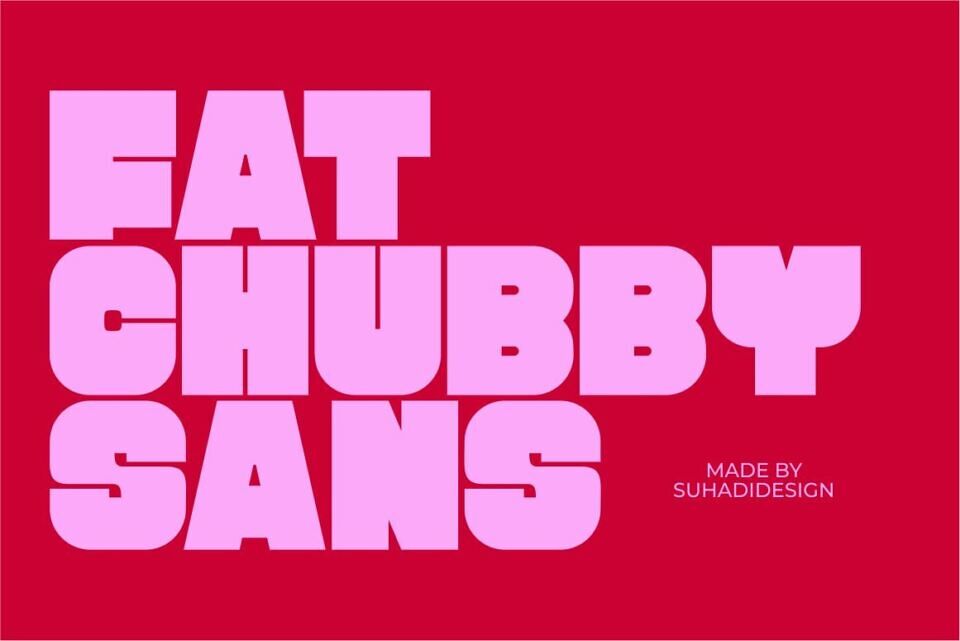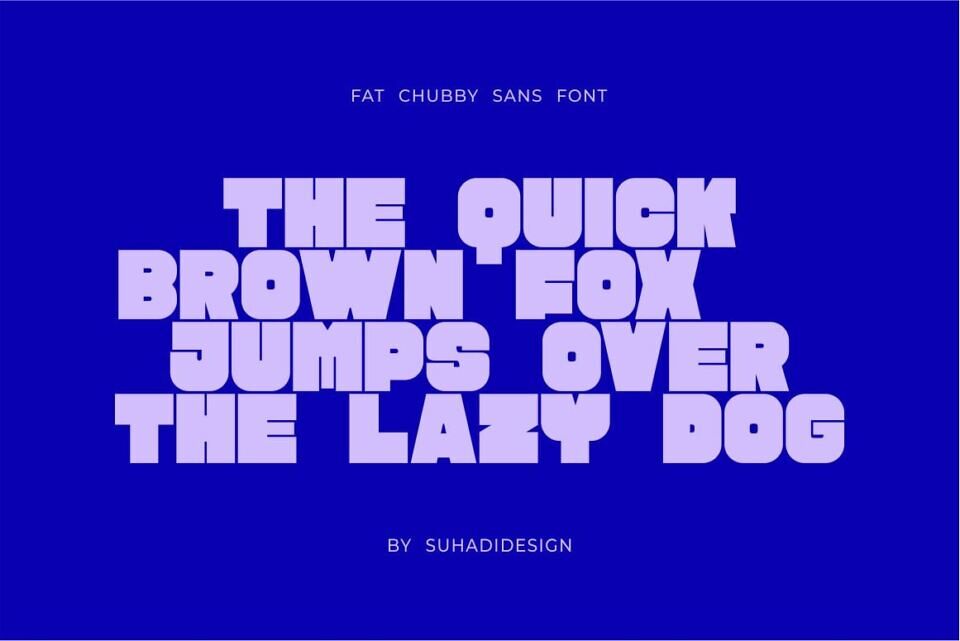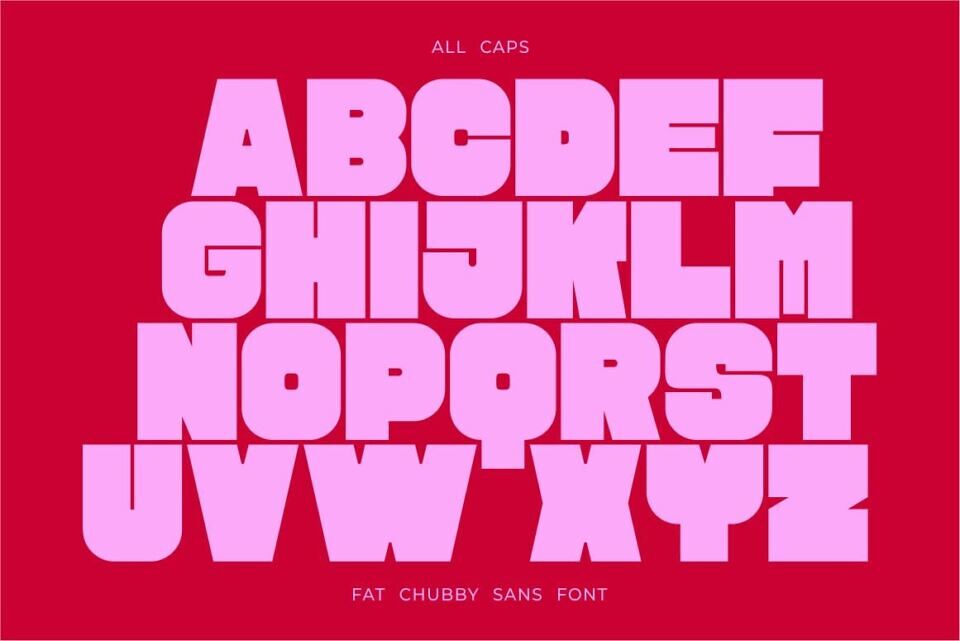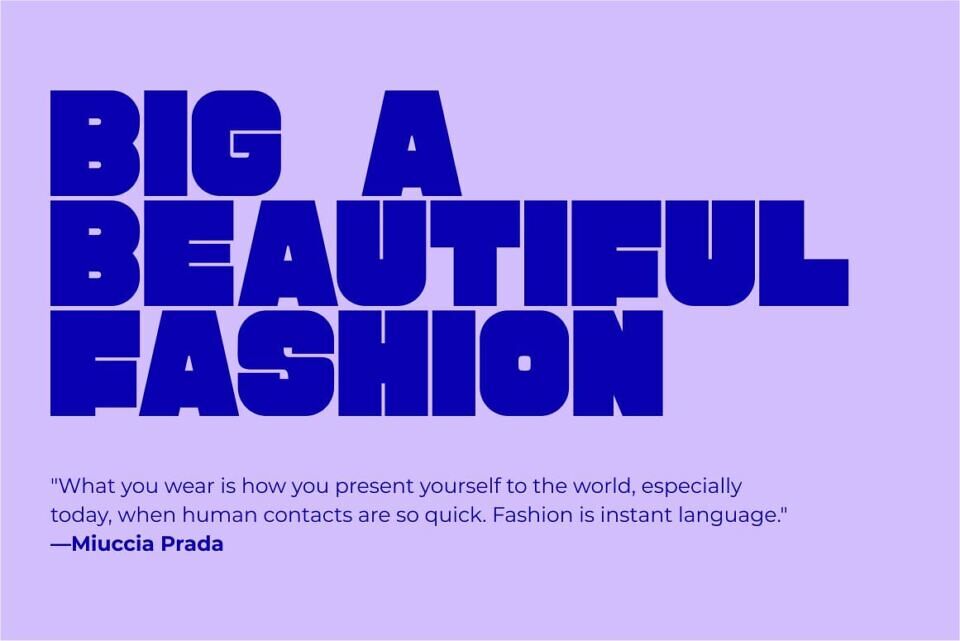
Fat Chubby Sans Font
The Fat Chubby Sans font is a sans serif font presented in a modern style with the hope of becoming a market favorite. We keep this font looking elegant, classy, ​​modern, stylish, contemporary and easy to use.
Fat Chubby Sans Font is a great choice for magazine, book cover, shopping bag, packaging, logo, label, fashion, poster, banner, bag, branding, fashion, brand name, branding, quote and other projects. The Fat Chubby Sans font is here to take your designs to the next level.